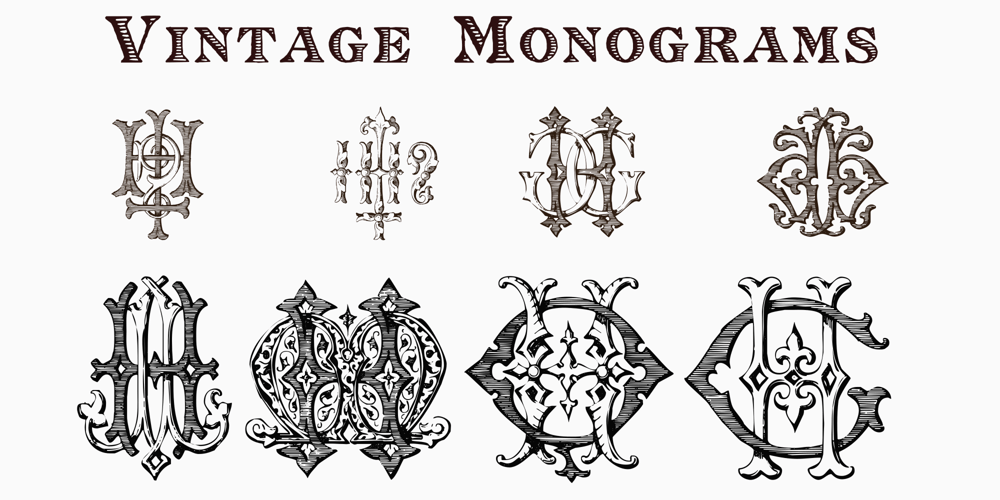
Vintage Monograms Font Family was designed by Paulo W and published by Intellecta Design. Vintage Monograms contains 12 styles and family package options. A Monogram is a lettering character made up of the main letters of a name and sometimes all of them.It is a kind of design which dates from the earliest times of our history. It is a distinctive mark that everyone could have themselves, to apply to documents and many purposes. The signatures of ancient Kings were Monograms.Today this brand, for the people of taste, must have the cachet of this era or the evocative feelings of ancient times. Our predecessors knew how to create it by using the capital that preceded Gothic and the other characters. The Vintage Monograms collection contain hundreds of ready to use in alarge of shape of the letters, with styles from Victorian, to Art Nouveau and to mediaeval like in the old manuscripts.Ready to use fonts, Vintage Monograms collection is a classic that features elegant and intricate monograms perfect for branding and personalization. Its ornate designs evoke the timeless style of vintage logos and can be used to add a touch of sophistication to invitations, stationery, and packaging. Monogram brings an air of refinement and exclusivity to any project.